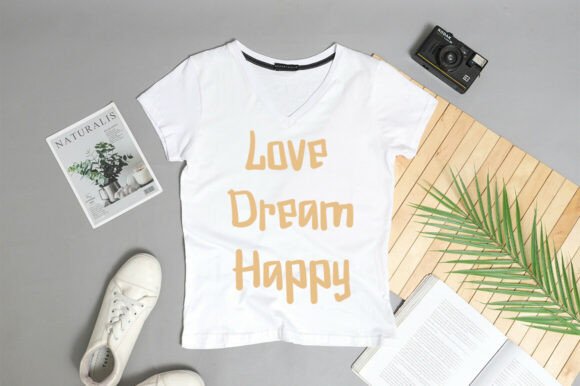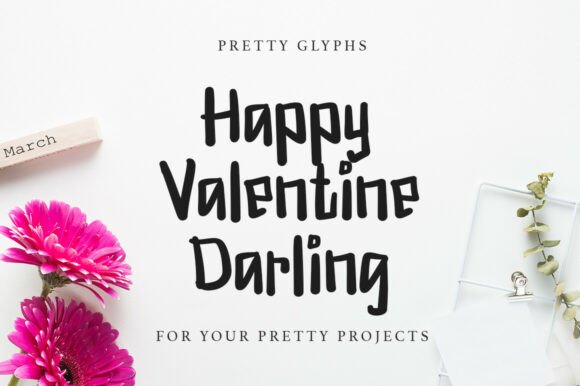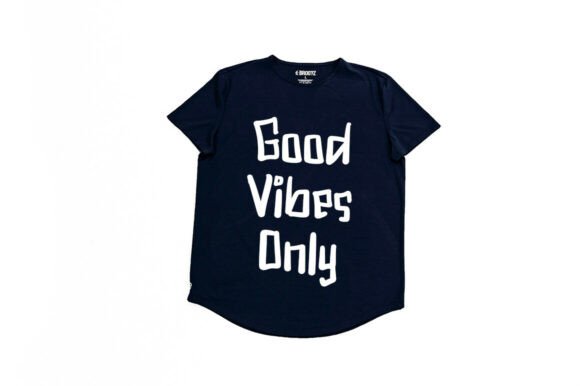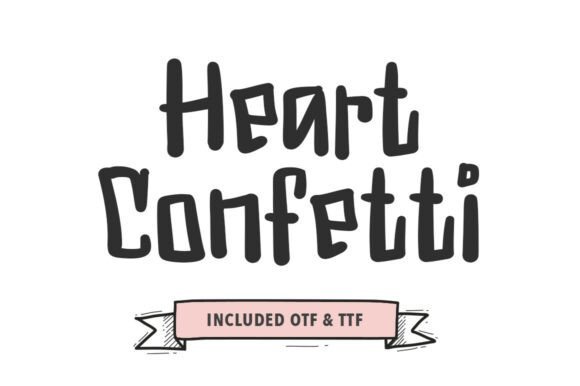
Introduction to Heart Confetti Font
Celebrate every design with Heart Confetti font, a lively and energetic typeface designed to bring joy to the page.
The irregular, bouncy rhythm of this Heart Confetti typeface mimics the movement of falling confetti, making it perfect for celebratory branding and party decor Use the Heart Confetti font to create eye-catching headlines for birthday invitations, festive posters, or playful packaging.
Key Features of Heart Confetti Font
Why Choose Heart Confetti Font?
Heart Confetti Font offers exceptional quality and versatility, making it a valuable addition to your design toolkit. Whether you’re creating for personal projects or commercial use, Heart Confetti Font delivers professional results.